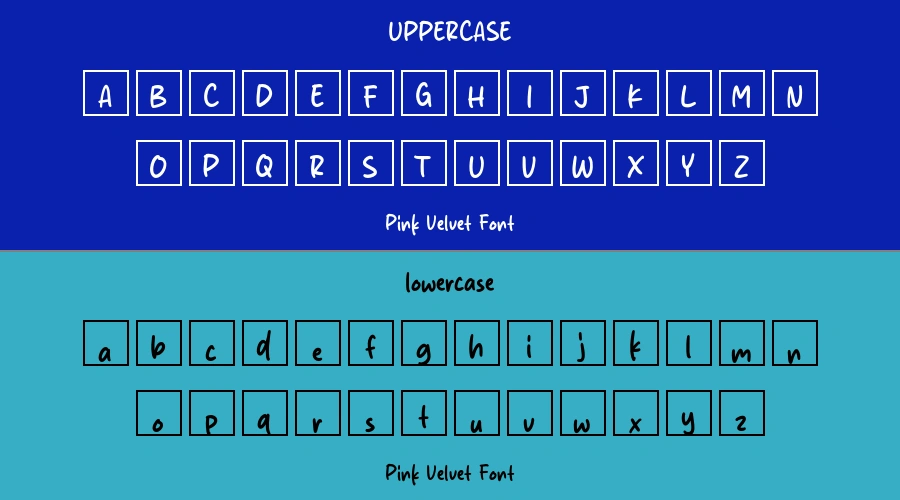
About Pink Velvet Font
When typographic excellence matters most, Pink Velvet Font delivers through its thoughtful blend of elegant proportions and brand presence. Specially crafted for magazine covers, it offers the accuracy and technical precision required for sophisticated design work. Every detail serves a purpose.
The character set showcases thoughtful details like organic forms alongside functional lining figures. This proves especially valuable in featured quotes, where numerical alignment directly influences results. Particular attention was paid to stem weight and contemporary relevance during development.